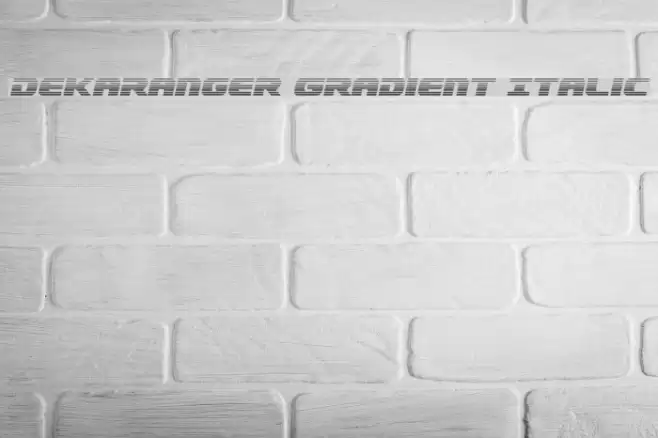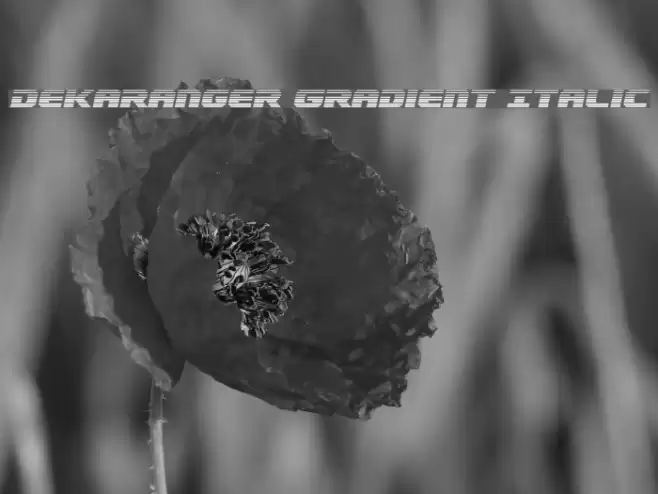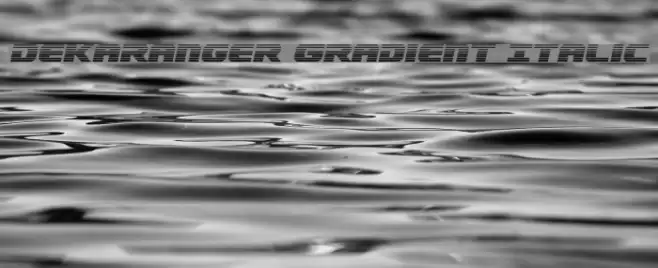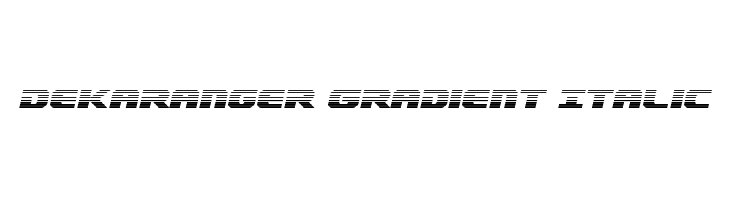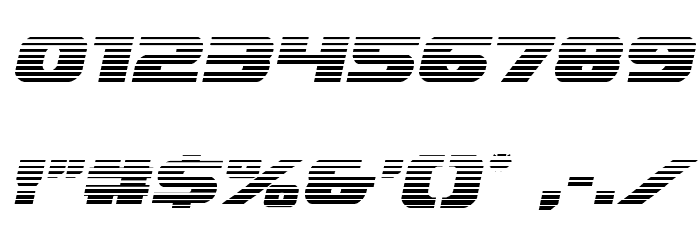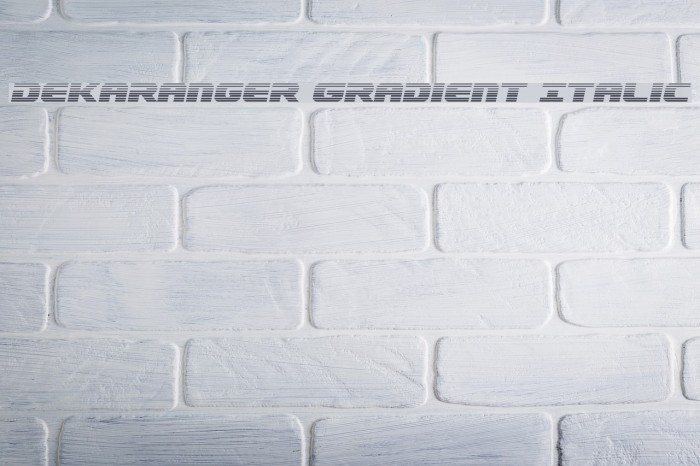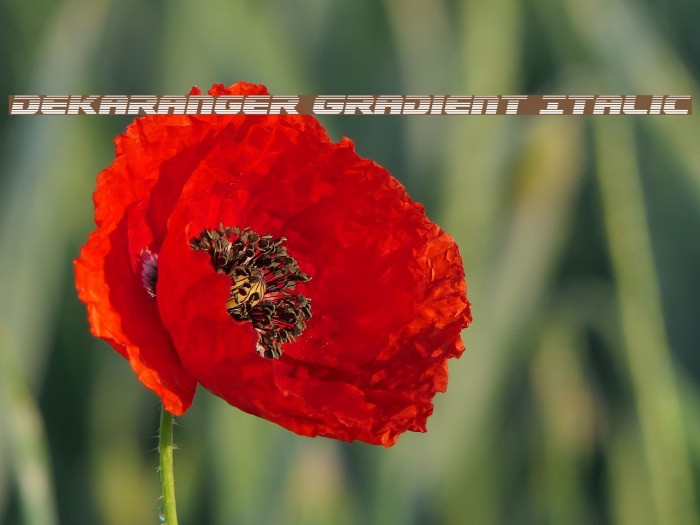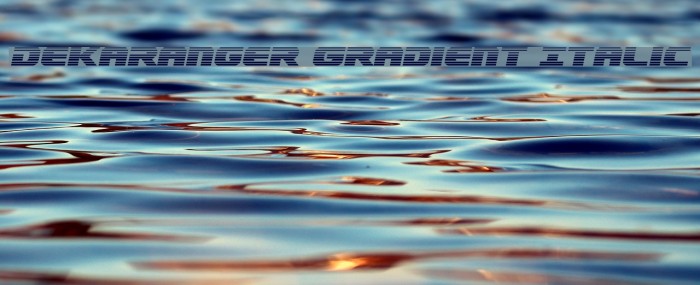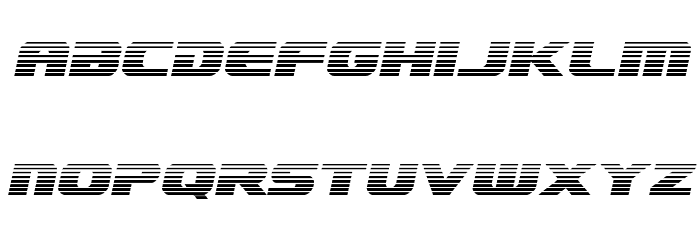
Dekaranger Gradient Italic Font
Dekaranger Gradient Italic Description
This font features a dynamic, futuristic style with a distinct italic slant, giving it a sense of motion and speed. The characters are composed of horizontal lines that create a gradient effect, enhancing the modern and technological feel. The uppercase and lowercase letters maintain a consistent design, with sharp angles and clean lines. Numbers and special characters follow the same aesthetic, ensuring uniformity across all glyphs. The overall appearance is bold and eye-catching, making it suitable for projects that require a strong visual impact.
A futuristic, italic font with a gradient line effect, perfect for dynamic and modern designs from Uncategorized fonts.
- Proposed Projects: Ideal for sci-fi themed posters, video game graphics, technology branding, and sports team logos.